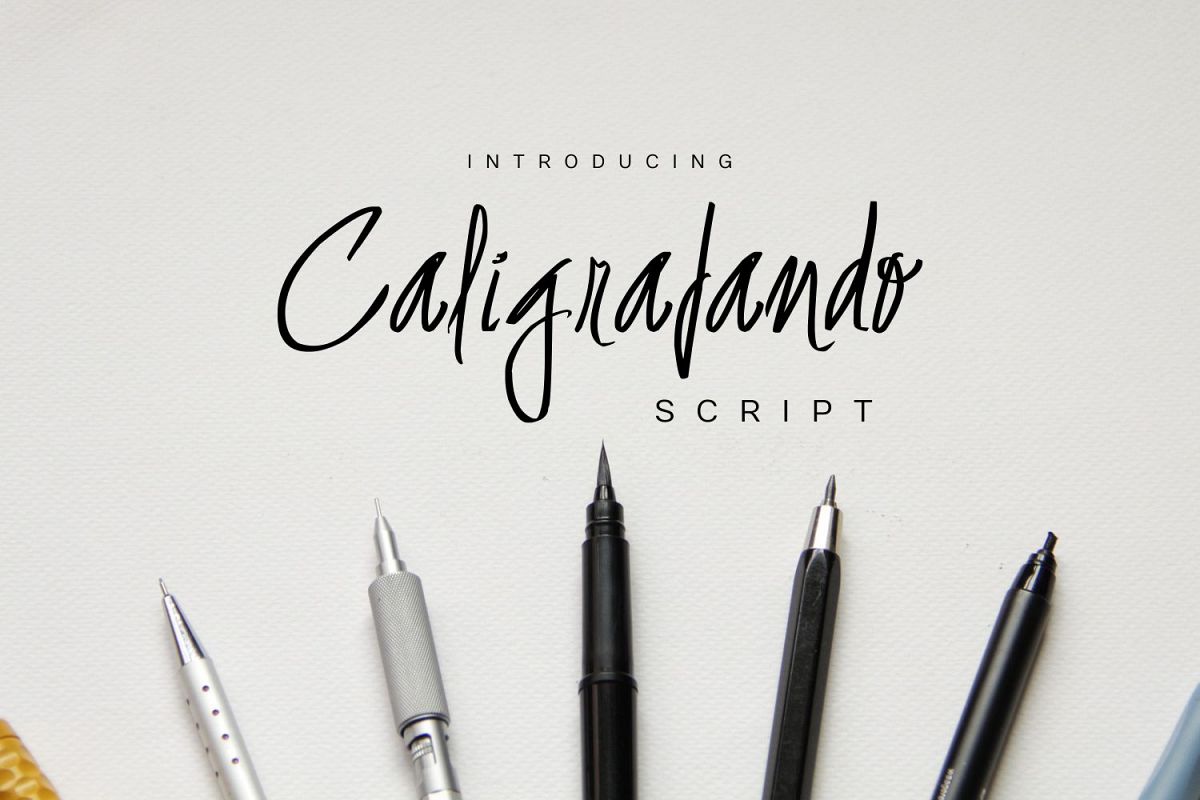
Caligrafando Script
Caligrafando script
Caligrafando Script - Is a hand-drawn script font, great for logo signatures. It can also be used for your autography in any graphic material. It can be used in all advertising materials, perfect for: branding, business card, packaging, flyer, logo, photos, books, packaging, posters, etc ...